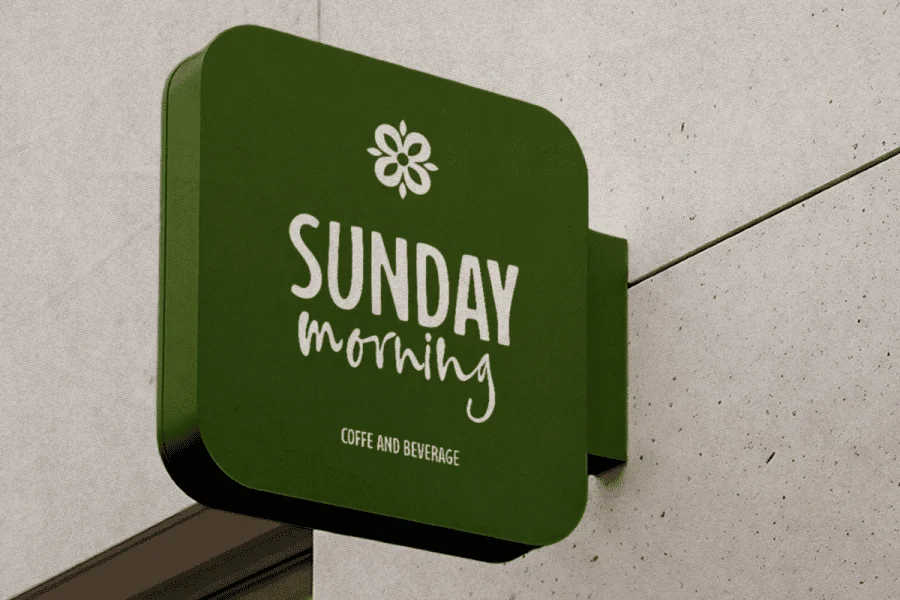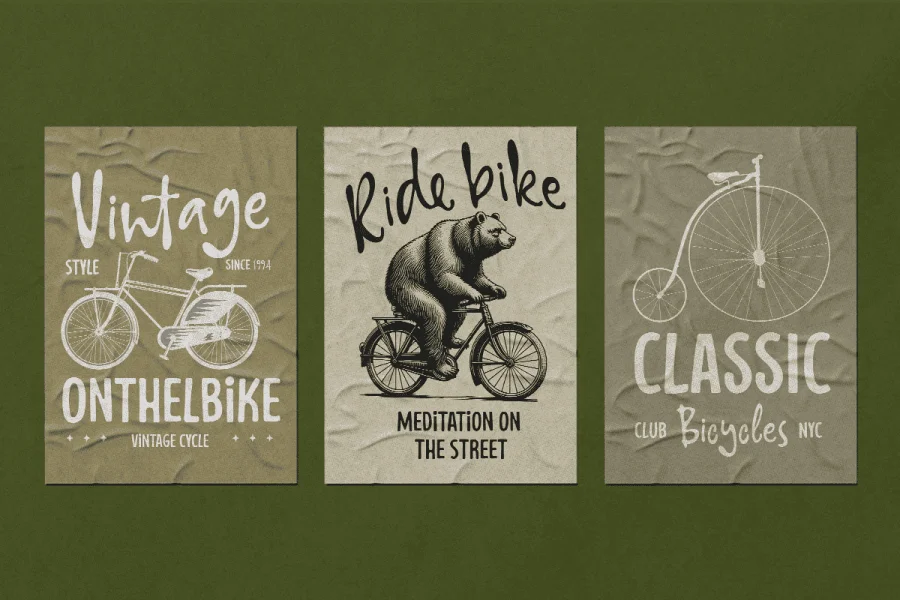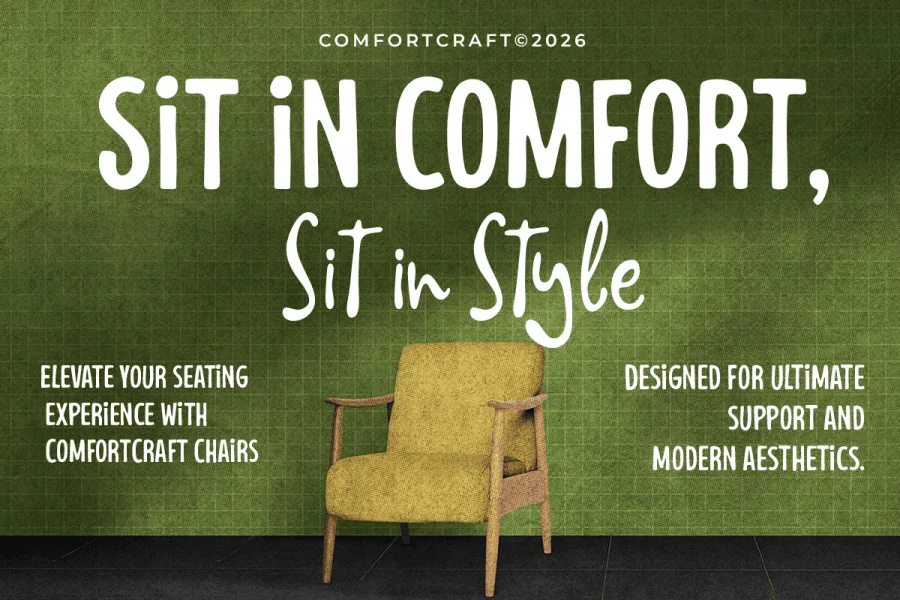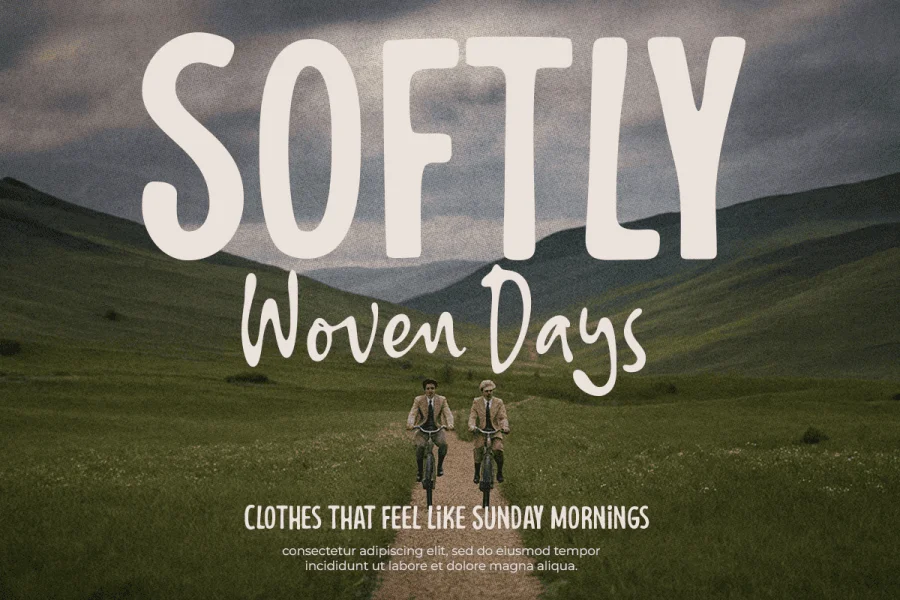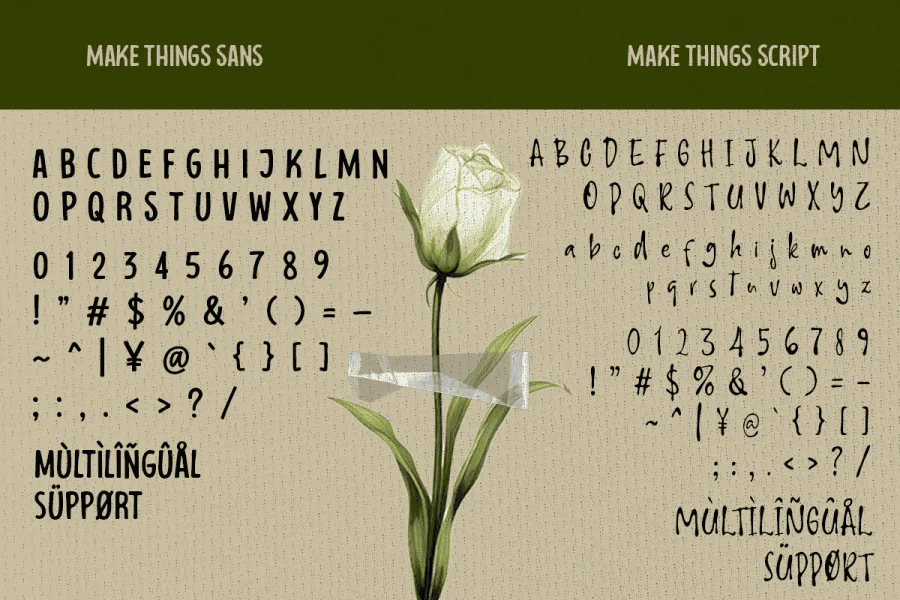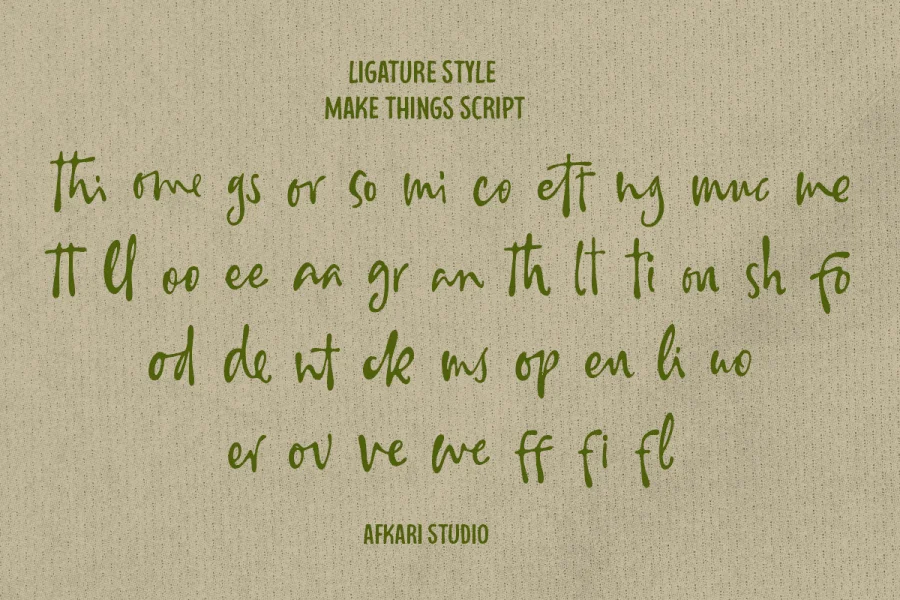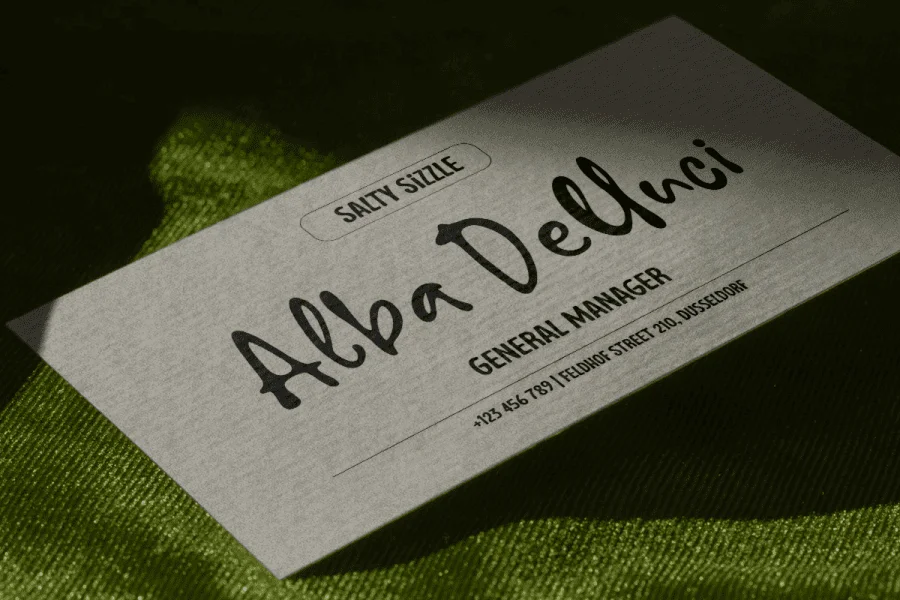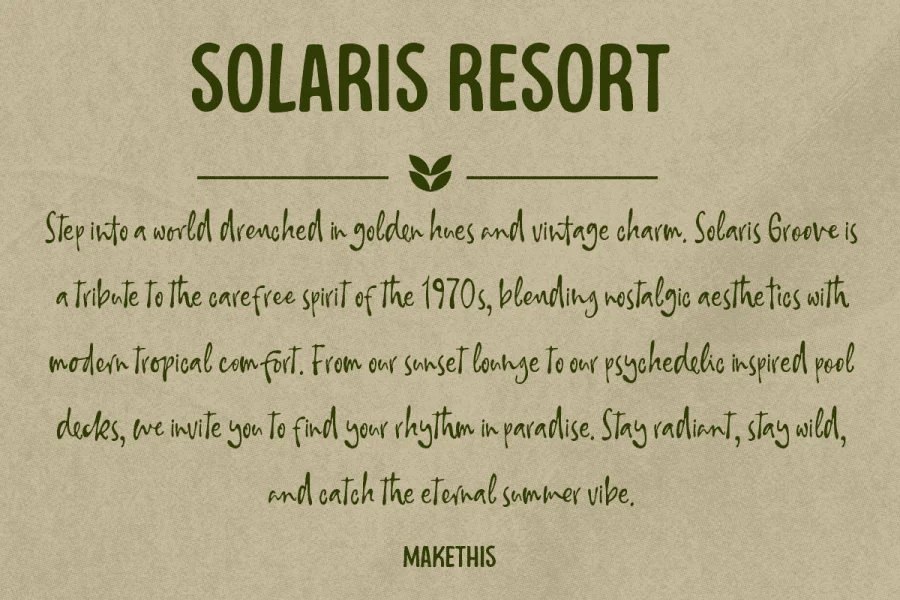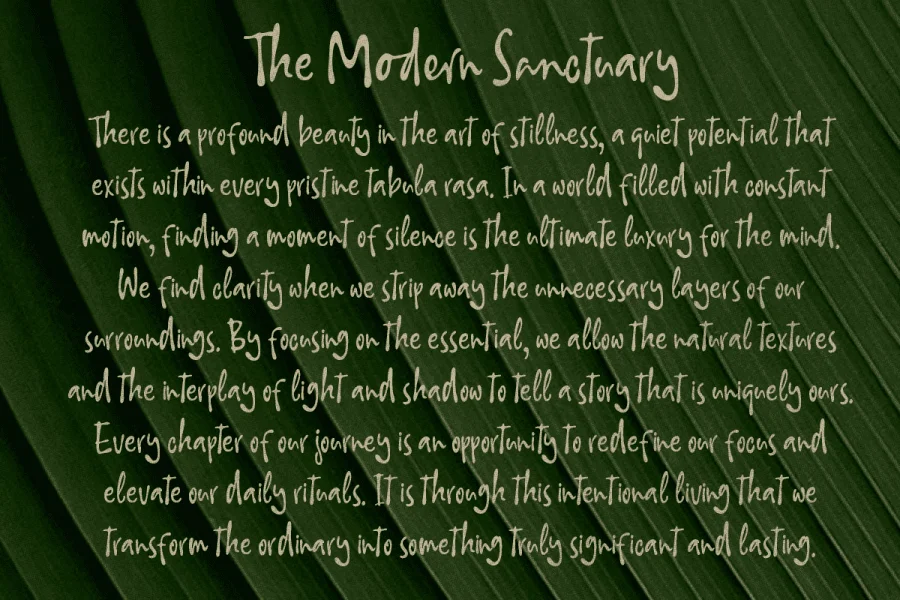
Make Things - Sans and Script Font Duo Typeface
Make Things is a versatile sans and script font duo typeface designed to give your projects the perfect balance between clean modern structure and expressive handwritten style. This powerful combination allows you to effortlessly create stunning typography with contrast, harmony, and visual interest.